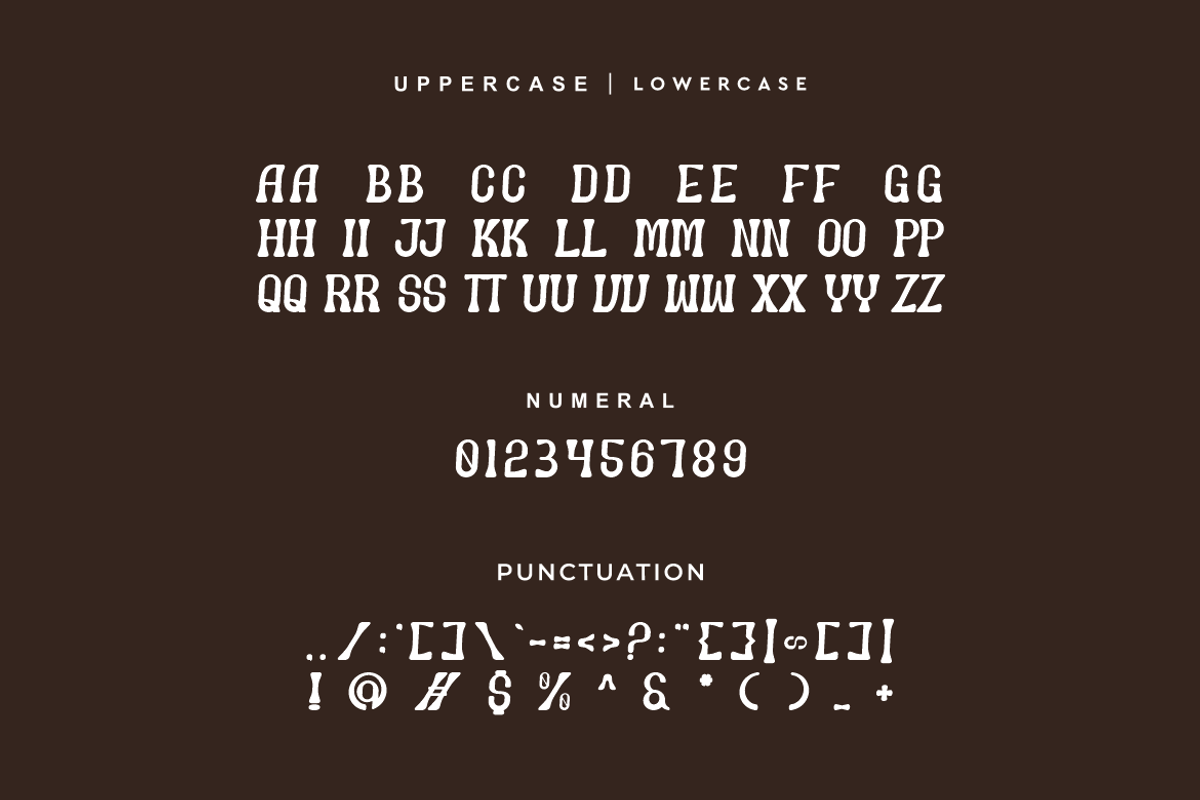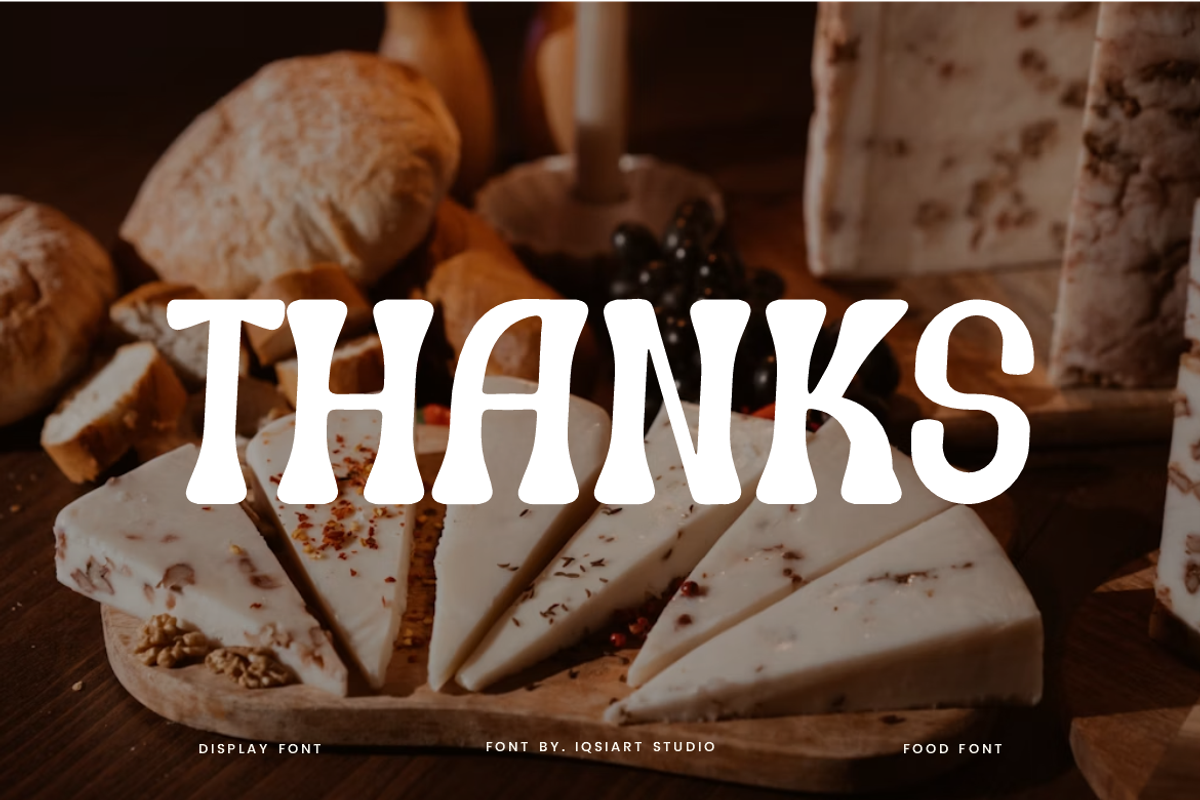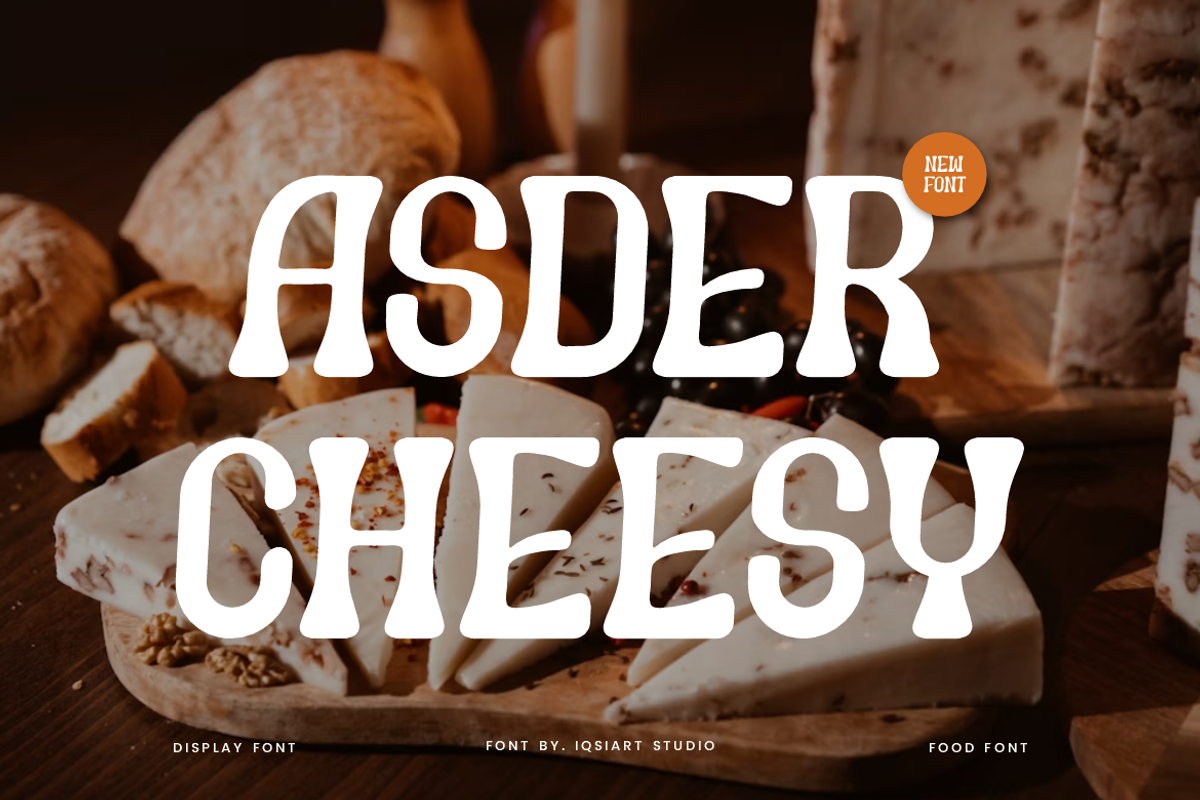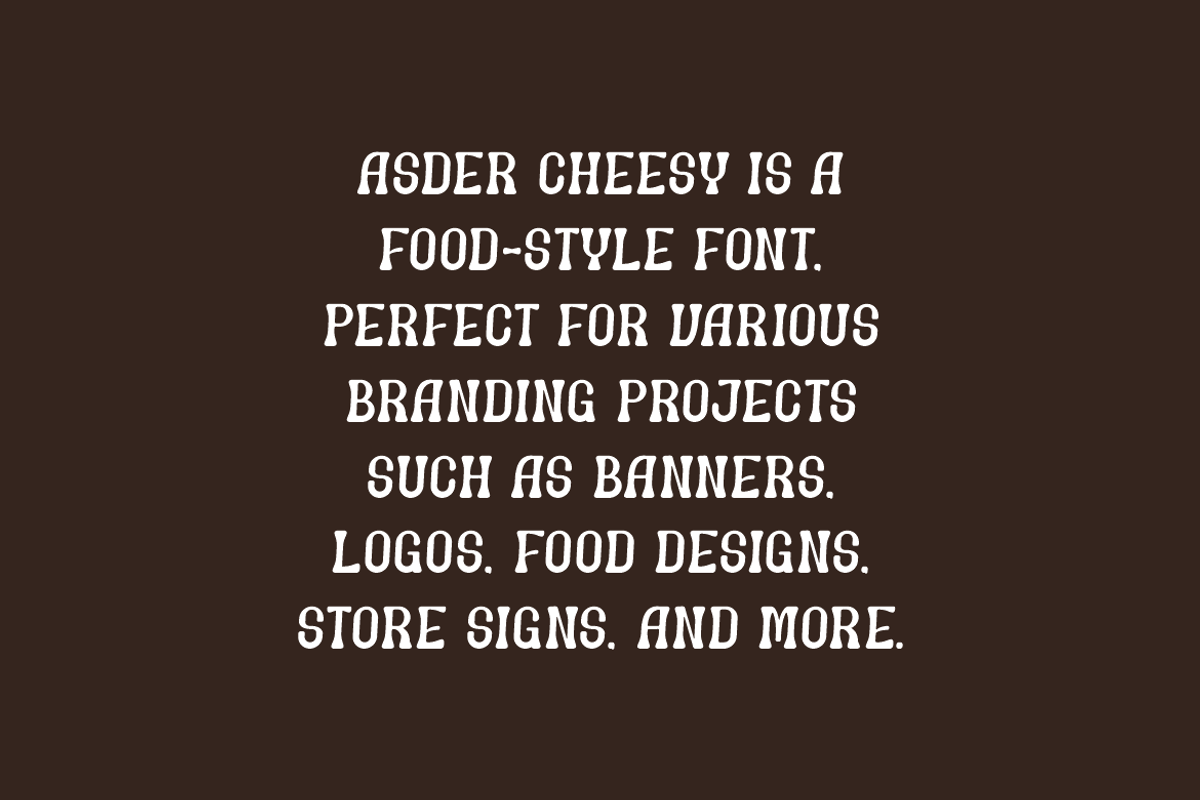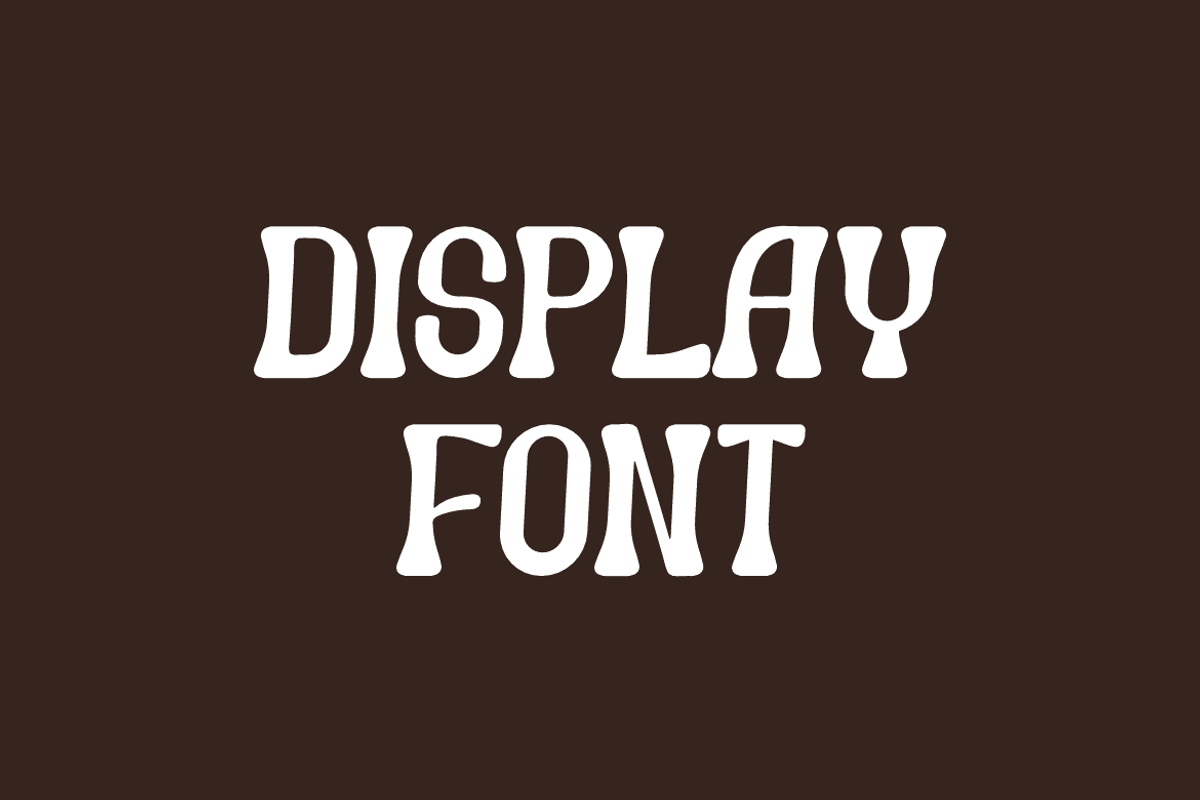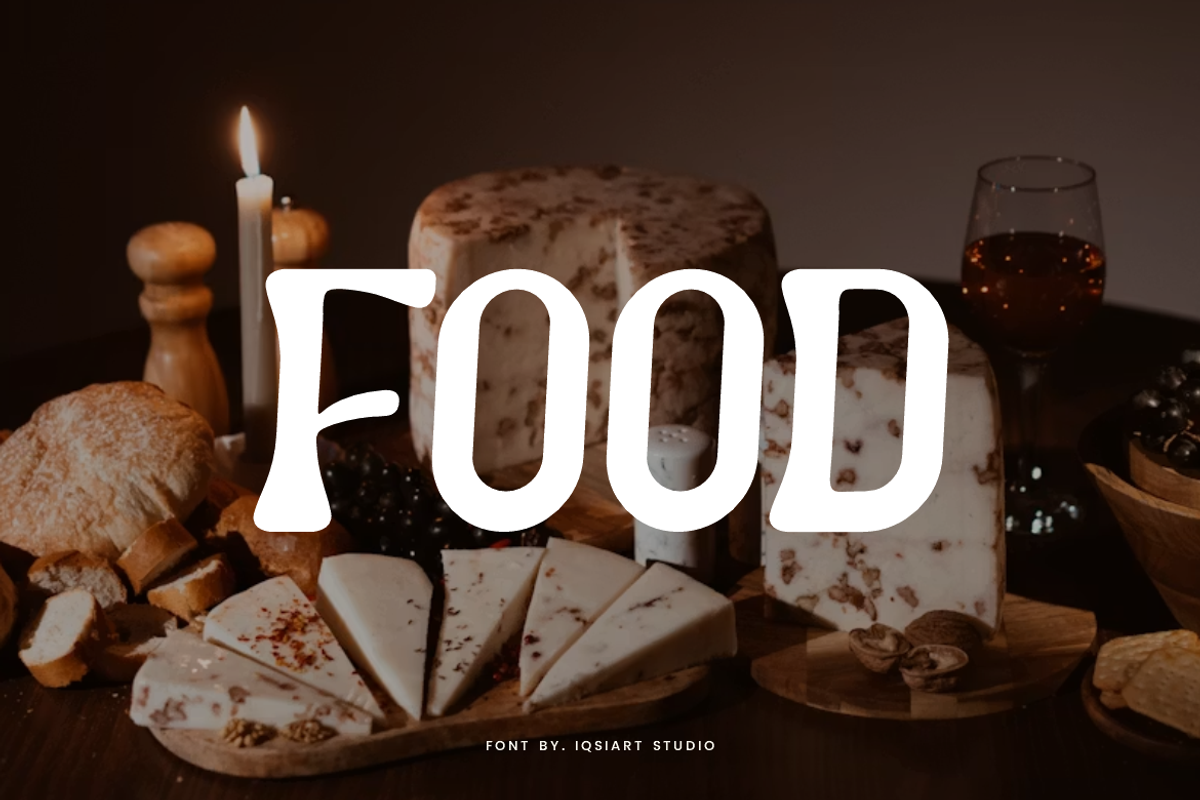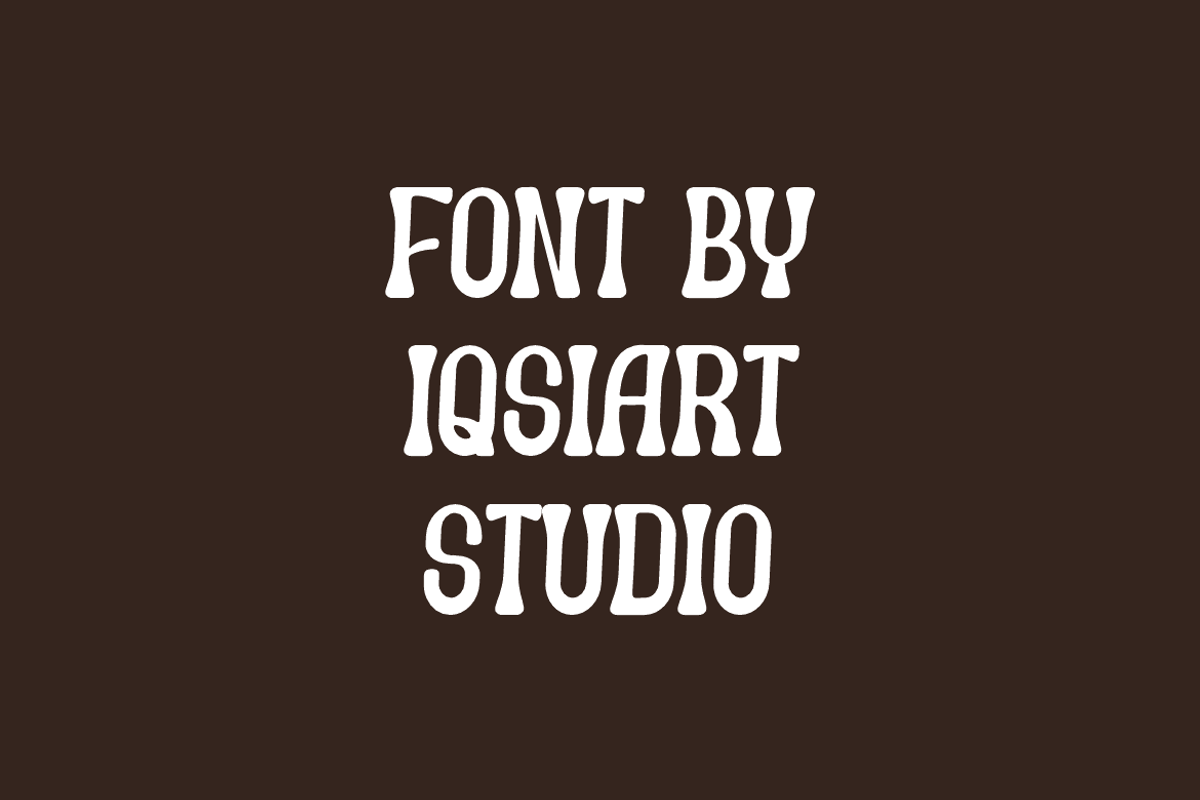
Asder Cheesy - Food Font
Asder Cheesy Font is a bold and authentic display typeface
that suits a variety of design needs. We offer a wide range of themes